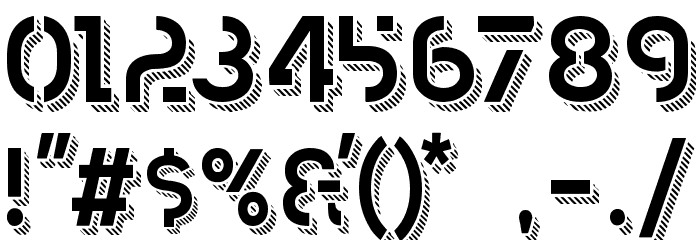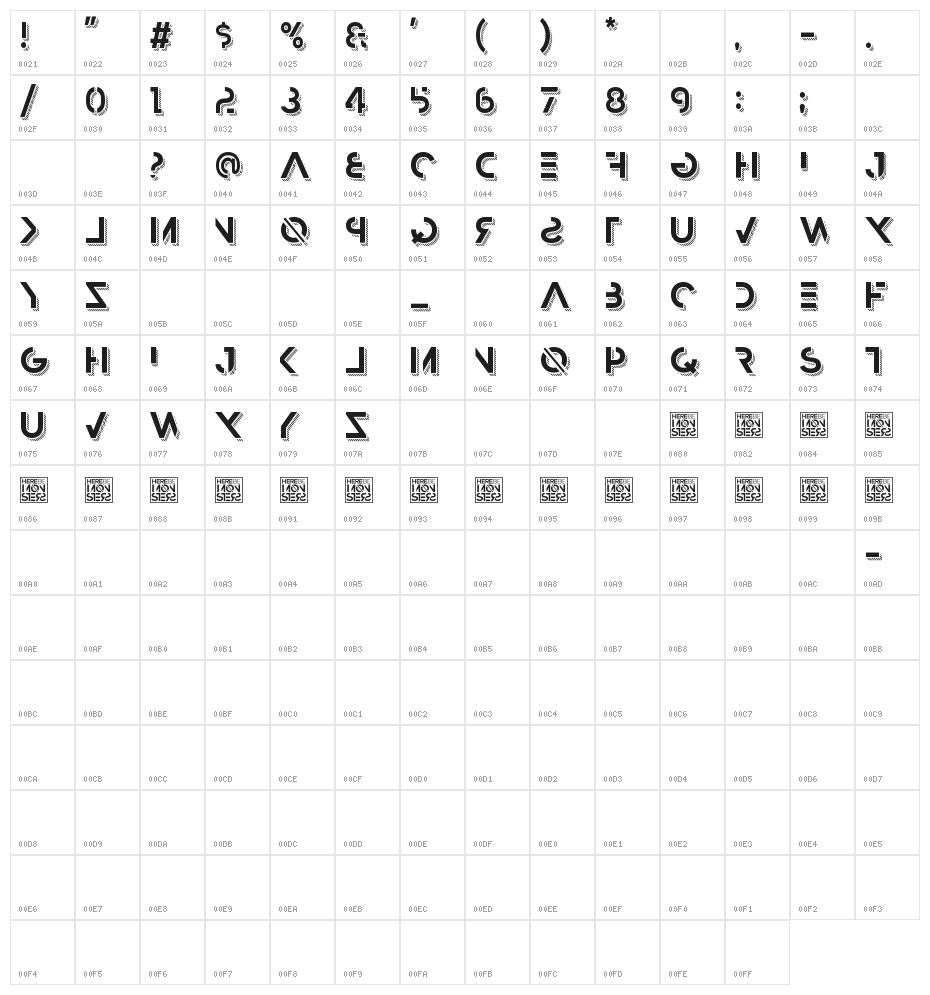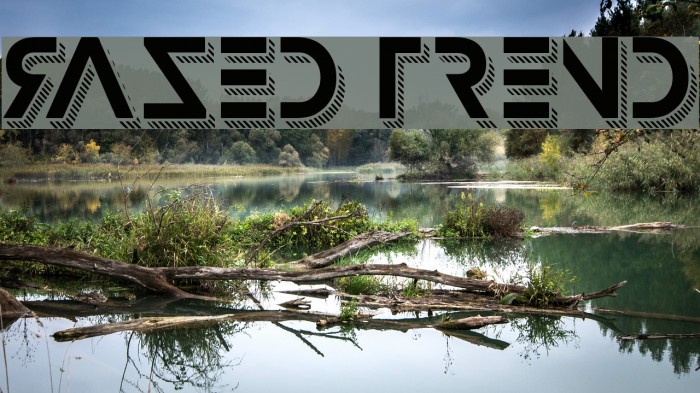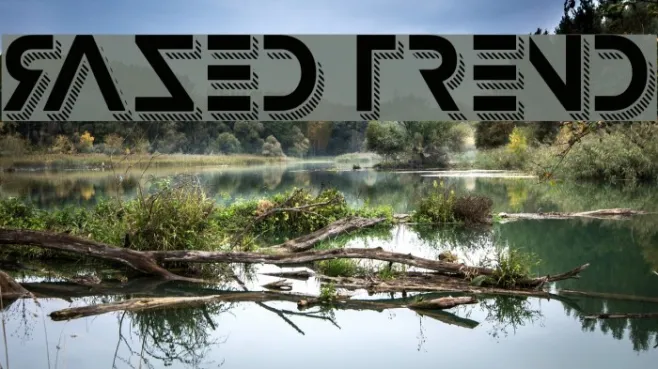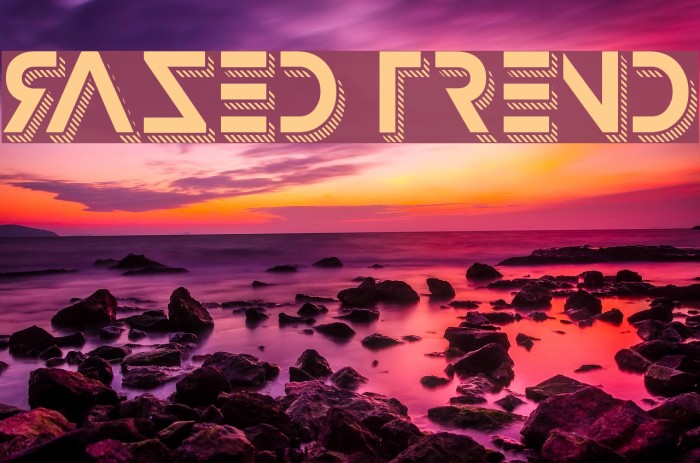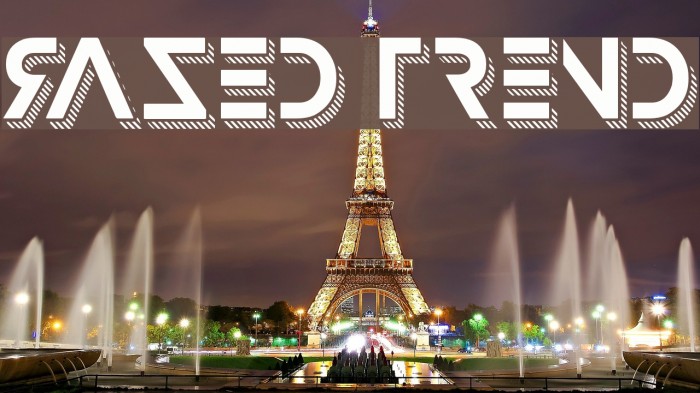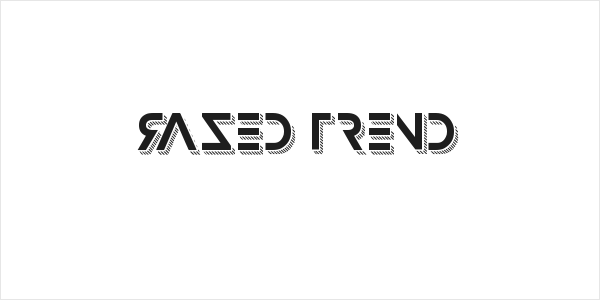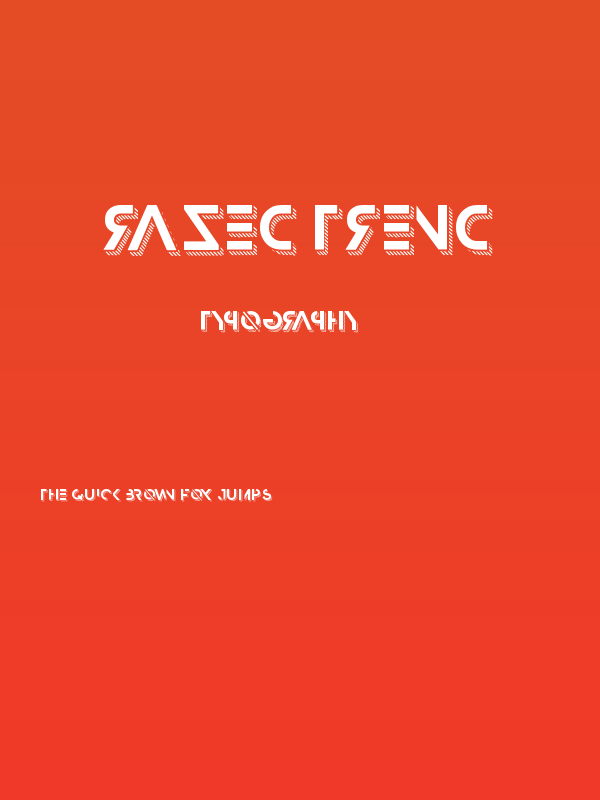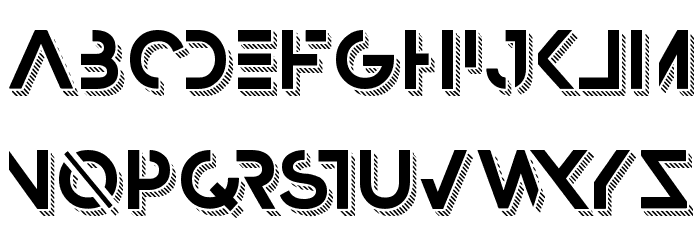
Razed Trend Font
Razed Trend Description
This font features a bold, geometric design with a distinct diagonal stripe pattern that adds a sense of movement and energy. The characters are constructed with sharp angles and clean lines, creating a modern and futuristic appearance. The use of negative space is prominent, enhancing the visual impact and making each letter stand out. The font's unique style is both eye-catching and versatile, suitable for a variety of creative applications. Its boldness and distinctiveness make it ideal for projects that require a strong visual presence.